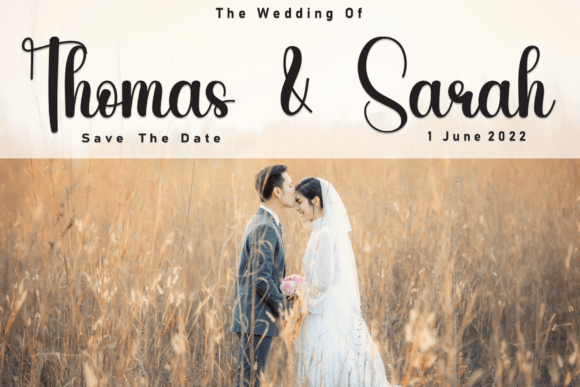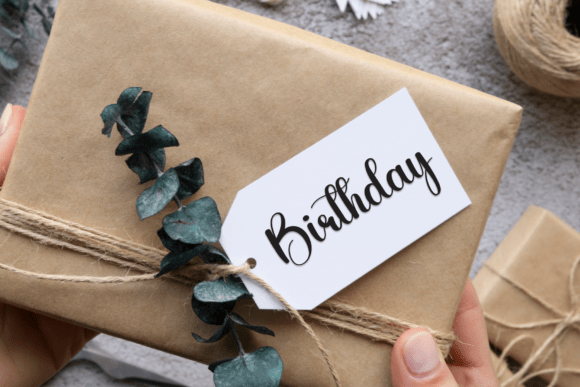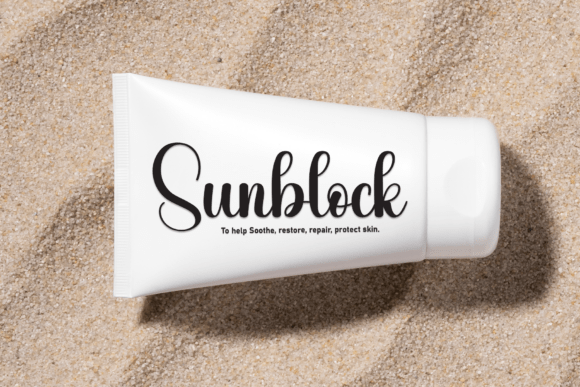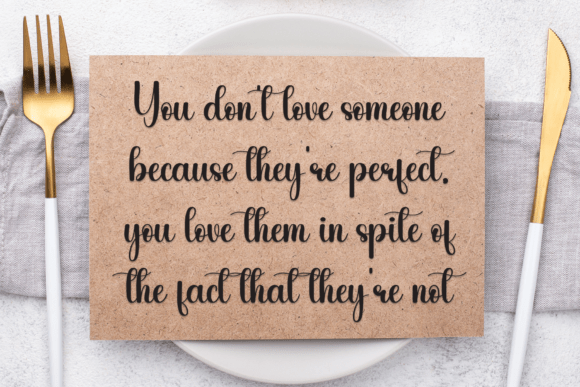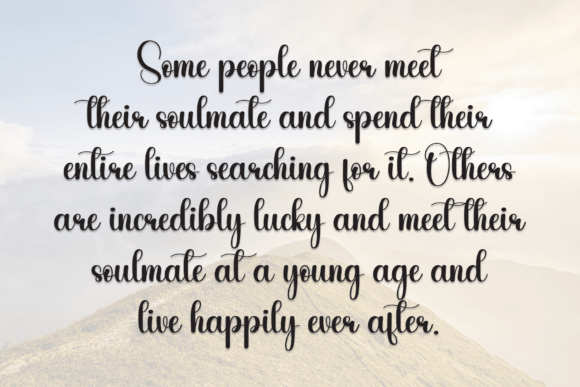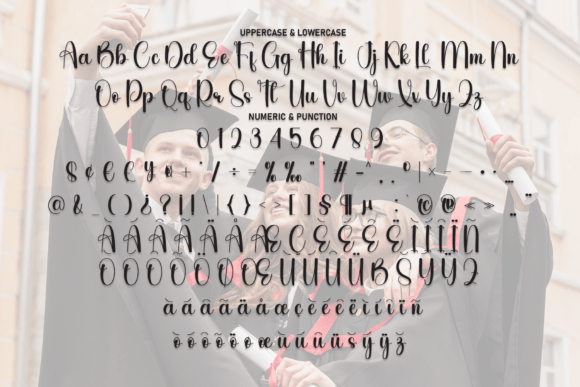
The Perfect Font to Make Your Designs Shine
Imagine the moment you’re working on a project, pouring your heart and soul into every detail, and finally, it all comes together in a beautiful, cohesive piece. The perfect font can make all the difference in elevating your design from good to great, and for many creatives, that font is the Graduation Font.
This captivating handwritten display font is more than just a pretty face – it’s a way to add warmth and personality to your work. Whether you’re designing a wedding invitation, a social media post, or a website, the Graduation Font is the perfect choice to add a touch of magic to your design. With its unique blend of elegance and whimsy, it’s a valuable asset for any designer looking to take their work to the next level.
Graduation Font Key Features
- Font Family: Graduation Font is a custom, hand-drawn font family designed for celebratory occasions.
- Unique Characteristics: Distinctive, hand-drawn style with flourishes and ornaments, adding a touch of elegance and sophistication to any design.
Designer Review: Graduation Font
First off, I’d say that the Graduation Font has a certain ✨ charm to it. The elegant, cursive script style is perfect for conveying a sense of sophistication and achievement. The font’s flowing lines and subtle flourishes add a touch of luxury, making it ideal for high-end graduation announcements, certificates, or even wedding invitations.
- The font’s versatility is a major plus, as it can be used for both formal and informal projects.
- Graduation Font’s legibility is also top-notch, making it easy to read even in smaller sizes.
- The font’s intricate details and subtle texture add depth and visual interest.
Overall, I’d say that the Graduation Font is a solid choice for designers looking to add a touch of elegance to their projects. While it may not be perfect for every project, its unique style and versatility make it a valuable addition to any designer’s toolkit.
Getting the Most Out of the Graduation Font
Use the Graduation Font to add a touch of sophistication and elegance to your designs. Tips include:
- Pair the font with a bold, contrasting color to make it stand out.
- Use the font in combination with other decorative elements, such as ribbons or confetti.
- Experiment with different font sizes and styles to create a visually appealing design.
The Graduation Font is perfect for:
- Graduation announcements and invitations.
- Academic certificates and diplomas.
- Wedding invitations and decorations.
- Any design that requires a touch of elegance and sophistication.